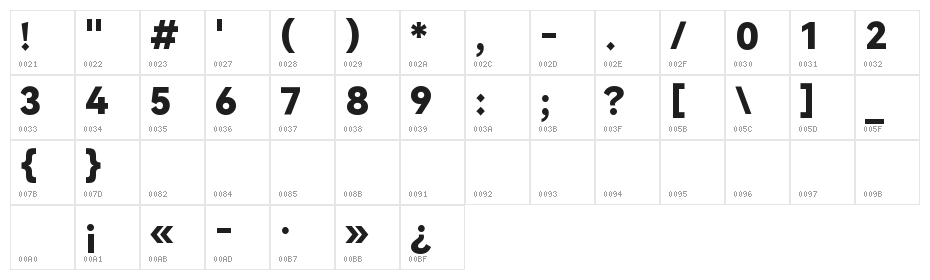
HarmonyOS Sans Naskh Arabic Black Font
HarmonyOS Sans Naskh Arabic Black Description
This font exhibits a bold and robust style, characterized by thick strokes and a strong presence. It is designed with a modern aesthetic, featuring clean lines and a uniform weight throughout. The characters are well-balanced, with a consistent height and width that ensures readability. The numerals and special characters are crafted to match the boldness of the alphabet, making it suitable for impactful displays. Its simplicity and clarity make it versatile for various design applications.